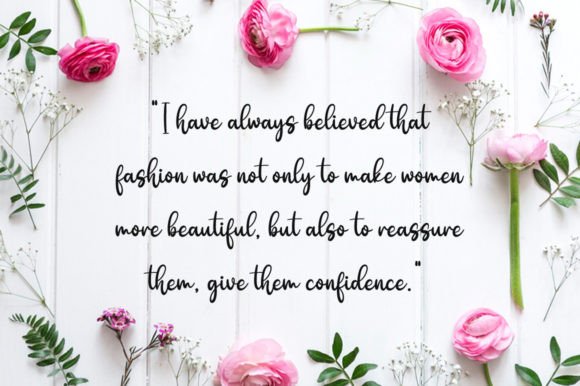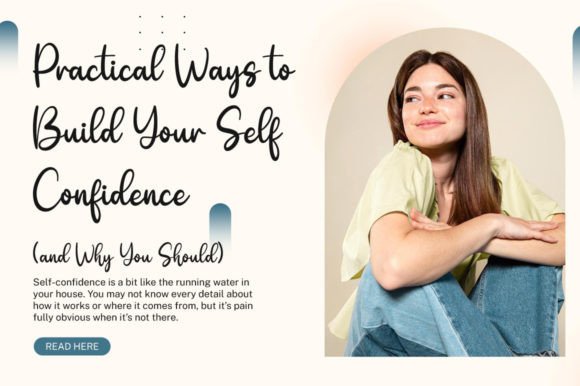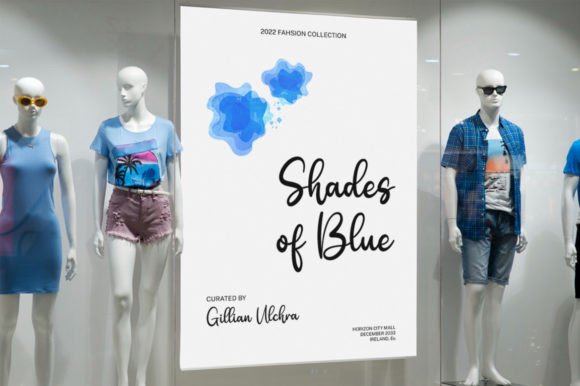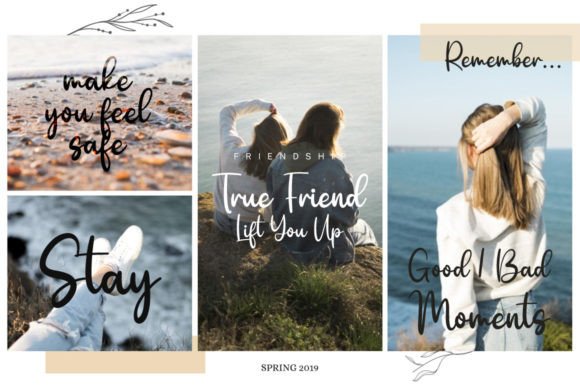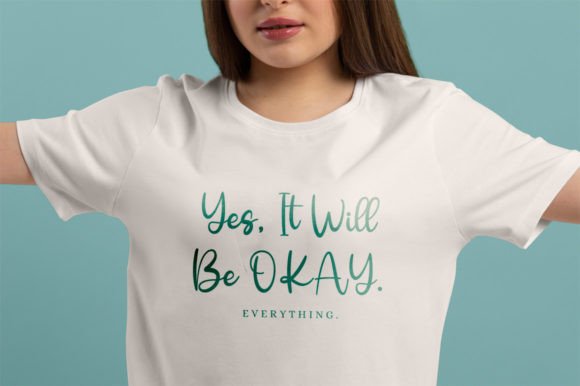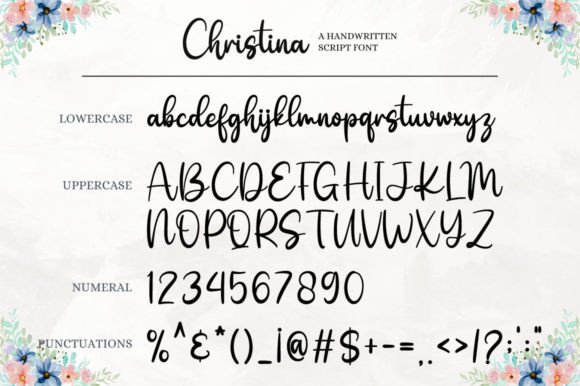
Discover the Charm of Christina Font: A Timeless Handwritten Delight
Are you on the hunt for a font that exudes elegance, sophistication, and a touch of playfulness? Look no further than Christina Font, a lovely and timeless handwritten font that’s perfect for creating eye-catching logos, branding, and quotes. In this article, we’ll dive into the world of Christina Font, exploring its unique features, uses, and benefits for designers and crafters alike.
What is Christina Font?
Christina Font is a beautiful, hand-crafted typeface that boasts a unique blend of classic and modern elements. Its flowing lines, gentle curves, and subtle imperfections give it a warm, organic feel that’s sure to capture the hearts of designers and audiences alike. Whether you’re working on a logo, branding project, or social media graphics, Christina Font is an excellent choice for adding a touch of personality and whimsy.
Key Features of Christina Font
- Handwritten style: Christina Font features a genuine, handwritten look that’s perfect for creating a personal connection with your audience.
- Timeless appeal: Unlike trendy fonts that quickly go out of style, Christina Font’s classic design ensures it will remain relevant for years to come.
- Versatile: This font is suitable for a wide range of projects, from logos and branding to quotes, posters, and social media graphics.
- Elegant and sophisticated: Christina Font’s refined lines and curves make it an excellent choice for high-end brands and luxury products.
Uses for Christina Font
Christina Font’s versatility makes it an excellent addition to any designer’s toolkit. Here are some ideas for using this beautiful font:
- Logo design: Create a lasting impression with a custom logo that showcases Christina Font’s unique charm.
- Branding: Use Christina Font to develop a consistent visual identity across your brand’s marketing materials.
- Quotes and posters: Add a touch of elegance to inspirational quotes, posters, and social media graphics.
- Wedding and event design: Christina Font’s romantic, whimsical feel makes it perfect for wedding invitations, programs, and other event materials.
Christina Font offers numerous benefits for designers and crafters, including:
- Easy to read: Despite its handwritten style, Christina Font is surprisingly legible, making it suitable for body text and captions.
- Customizable: Experiment with different colors, textures, and effects to make Christina Font truly unique.
- Time-saving: With Christina Font, you can create stunning designs in a fraction of the time it would take to craft a custom font from scratch.
Tips for Using Christina Font
To get the most out of Christina Font, keep the following tips in mind:
- Pair with complementary fonts: Combine Christina Font with clean, modern fonts to create visual interest and contrast.
- Experiment with colors: Try pairing Christina Font with bold, bright colors to add a pop of personality to your design.
- Pay attention to spacing: Make sure to leave sufficient space between lines and words to maintain readability and visual flow.
| Font Name | Christina Font |
| Author | Nirmala Creative |
Christina Font is a timeless, handwritten font that’s sure to captivate designers and audiences alike. With its elegant lines, whimsical charm, and versatility, it’s the perfect choice for creating eye-catching logos, branding, and quotes. Whether you’re a seasoned designer or a crafty DIY enthusiast, Christina Font is an excellent addition to your creative toolkit.